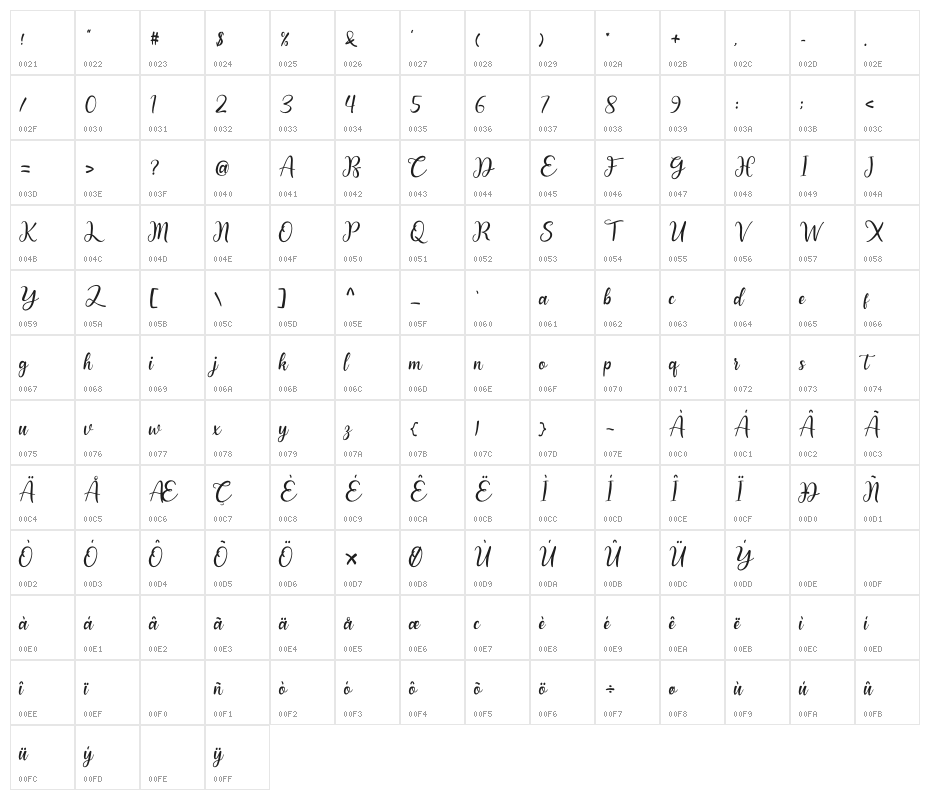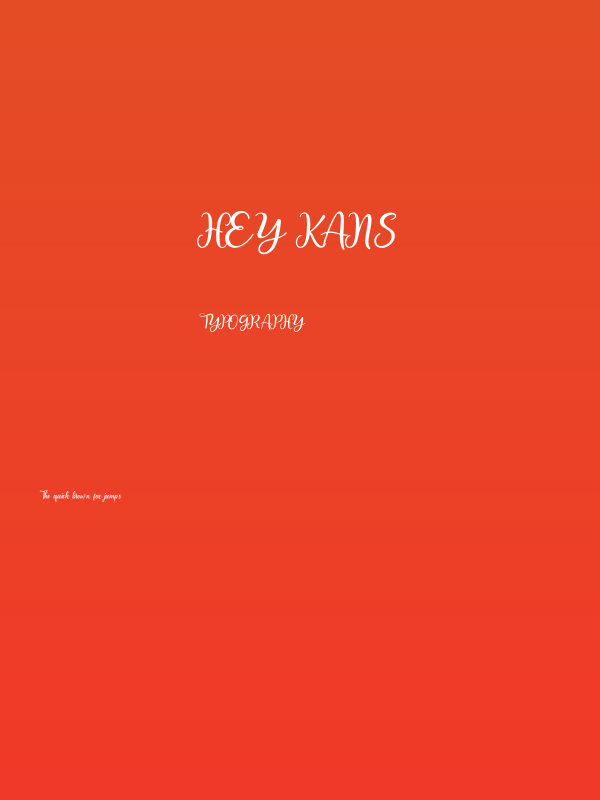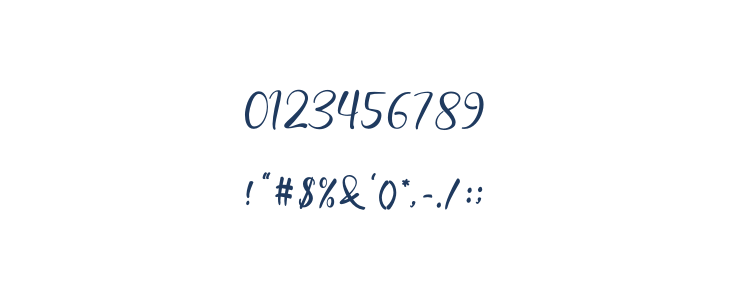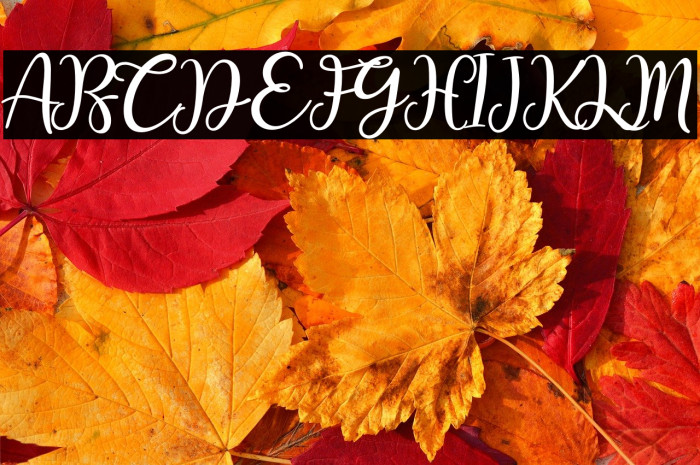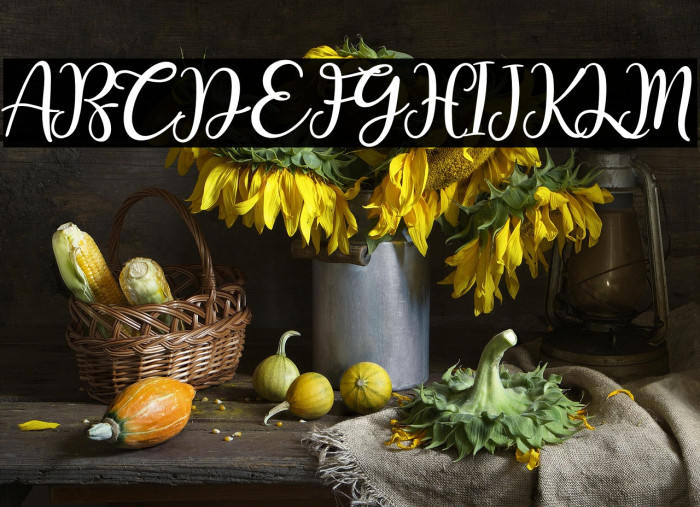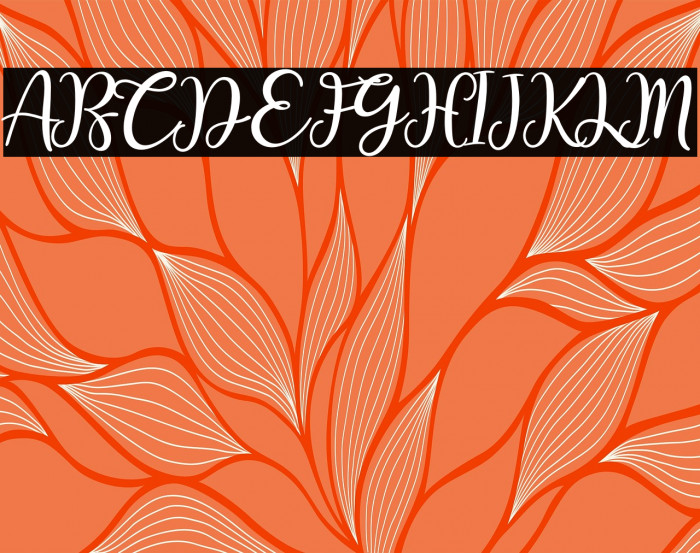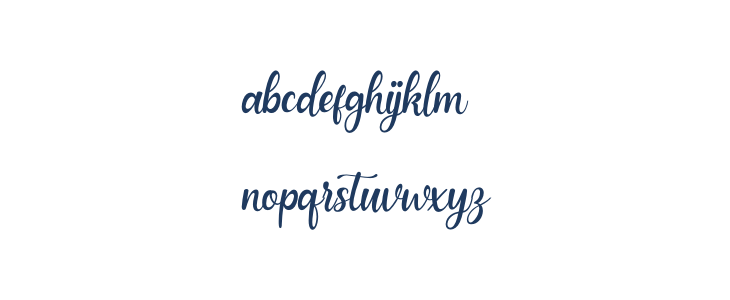
Hey Kans Font
Hey Kans Description
This font features an elegant and flowing script style, characterized by its smooth, cursive letterforms and graceful curves. The uppercase letters are particularly ornate, with intricate loops and swashes that add a touch of sophistication. The lowercase letters maintain a consistent flow, enhancing readability while retaining a stylish flair. Numbers and special characters are designed to complement the overall aesthetic, ensuring a cohesive look across all text elements. The font's design is both modern and timeless, making it suitable for a variety of applications.
| Overall Style | Elegant, Modern |
| Proposed Projects | Ideal for wedding invitations, branding, greeting cards, and elegant packaging designs. |